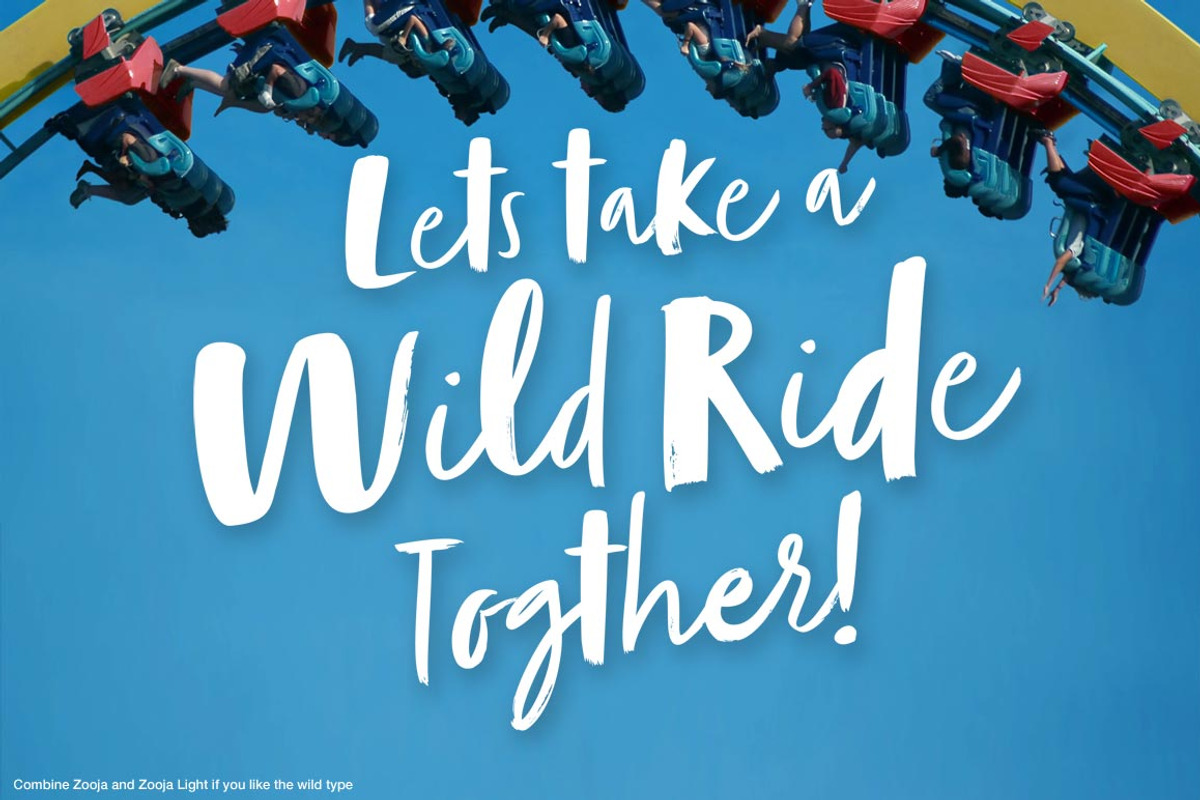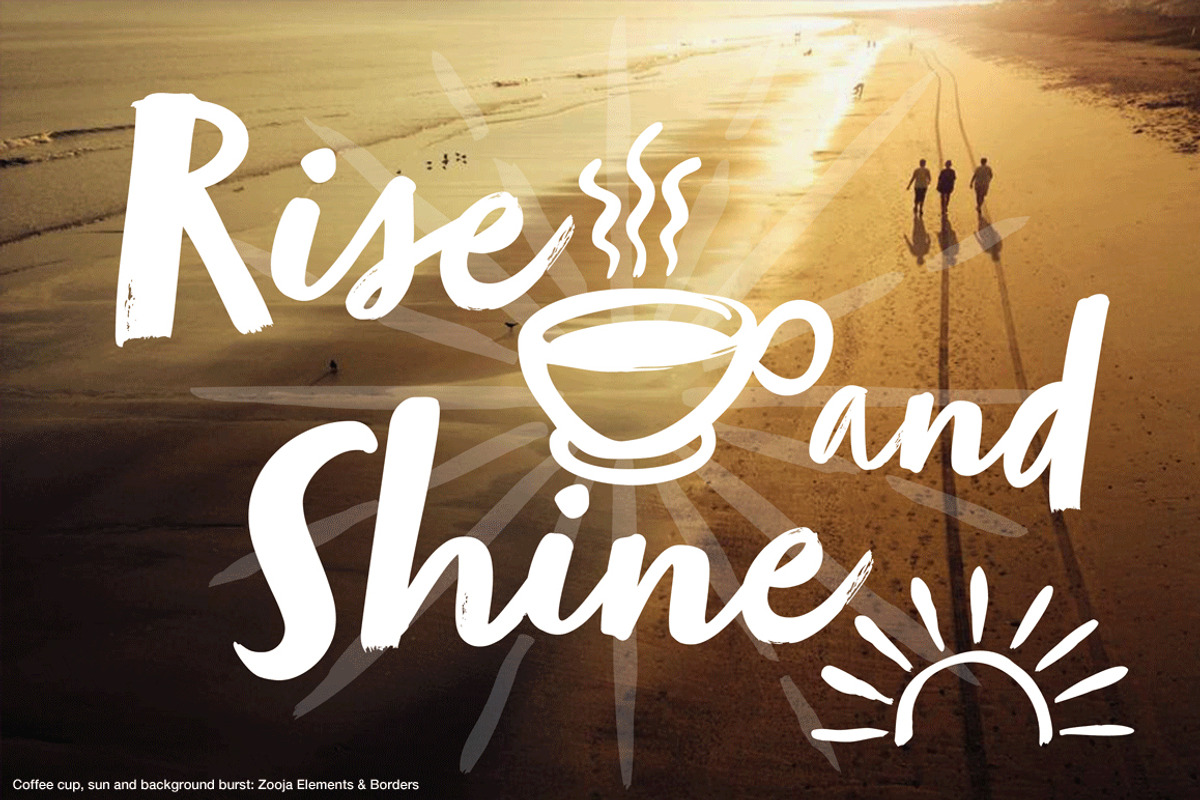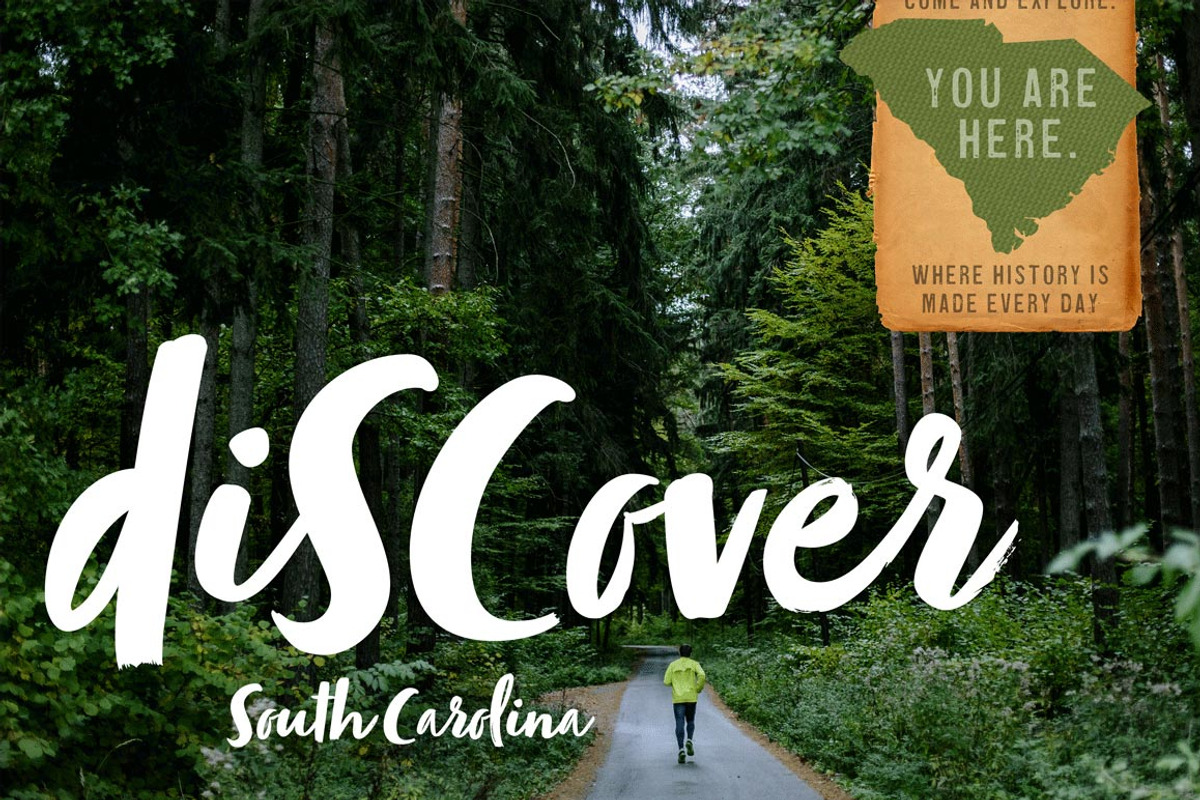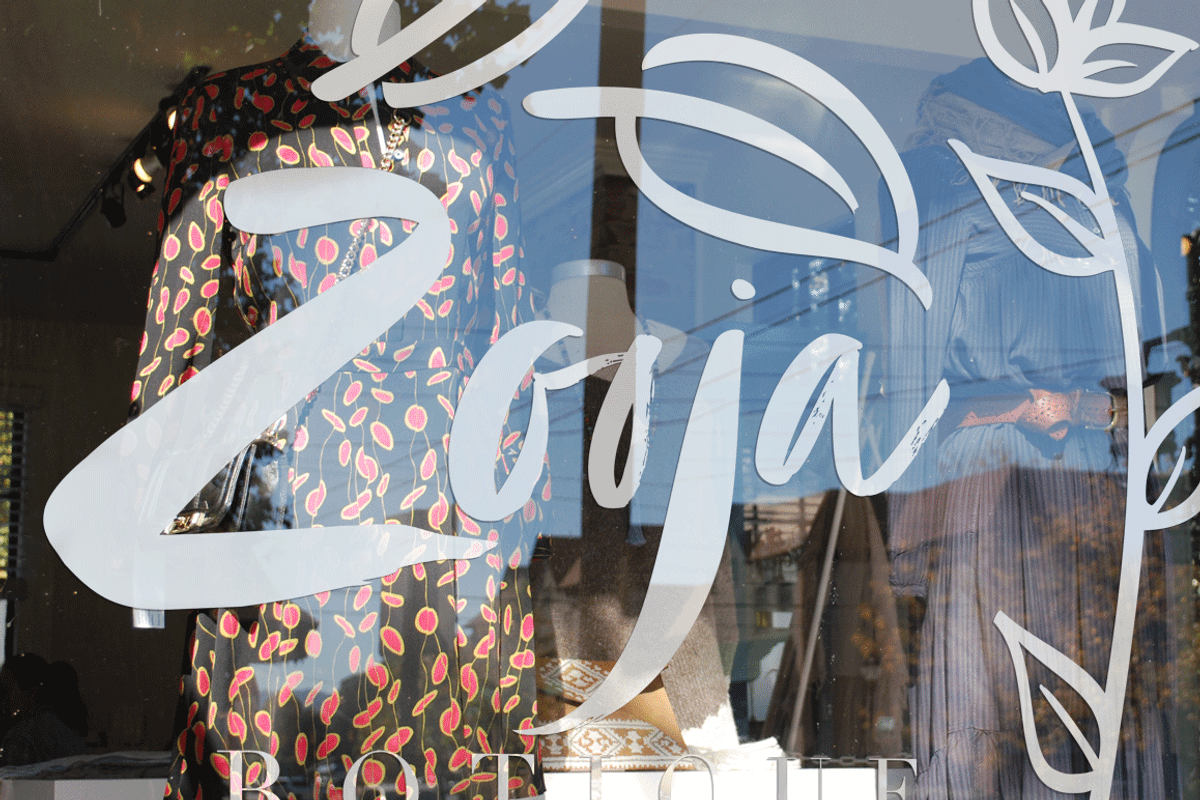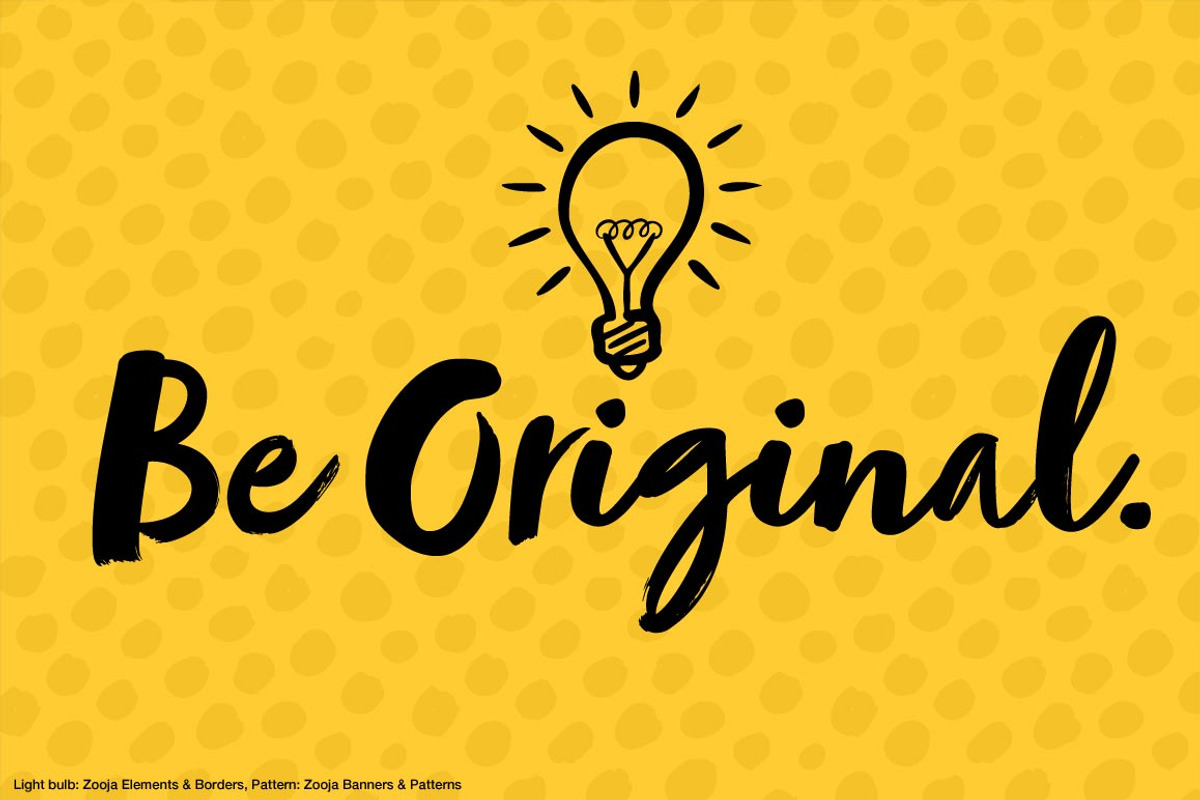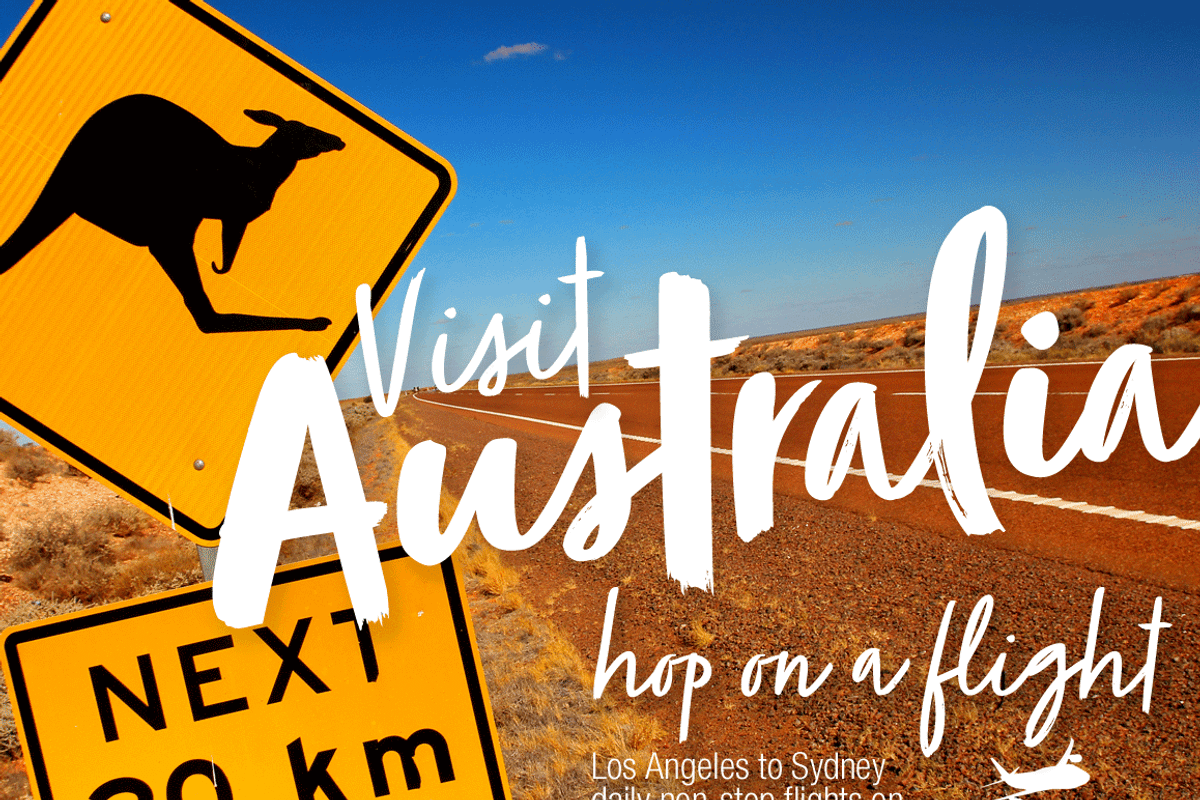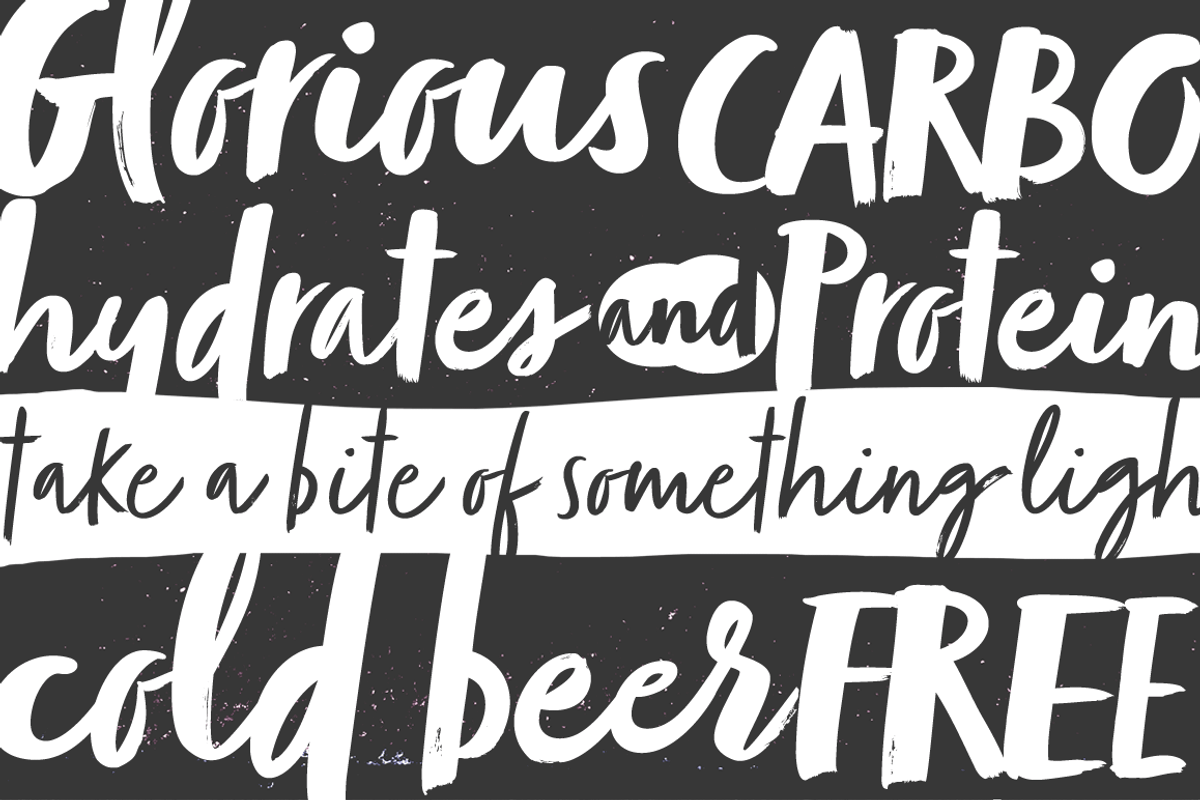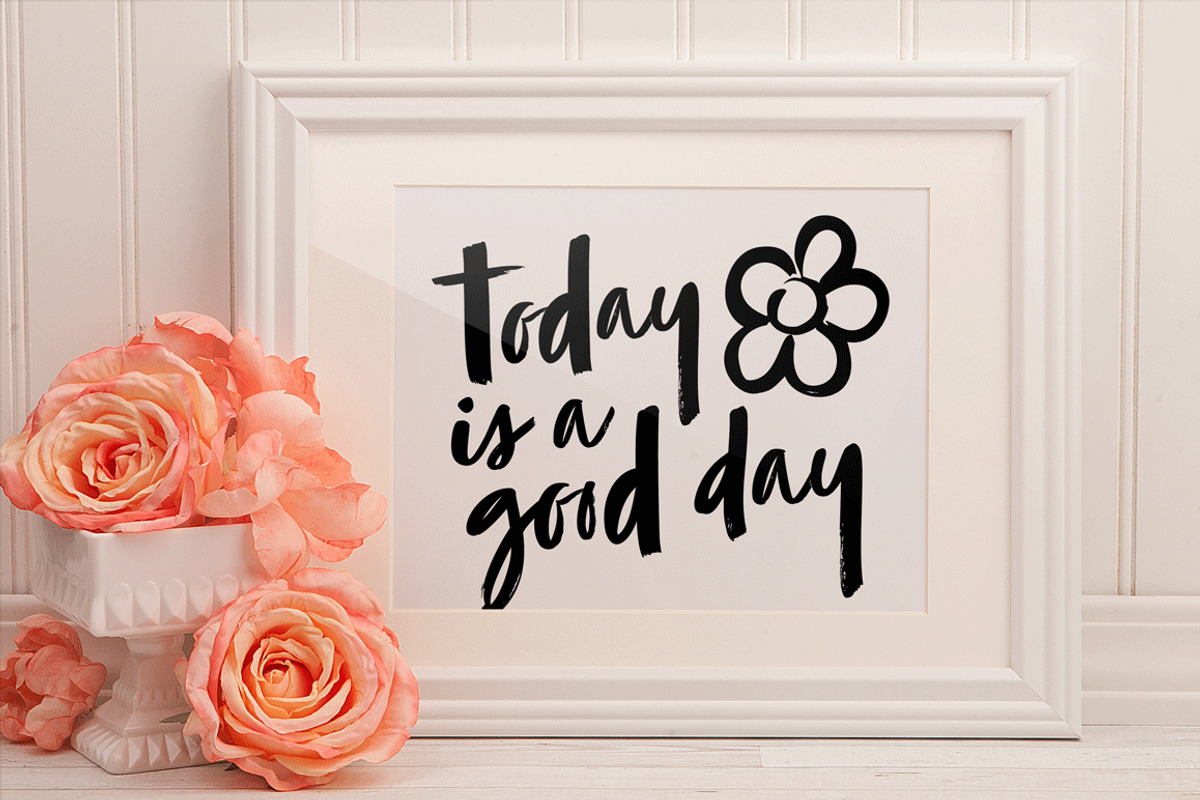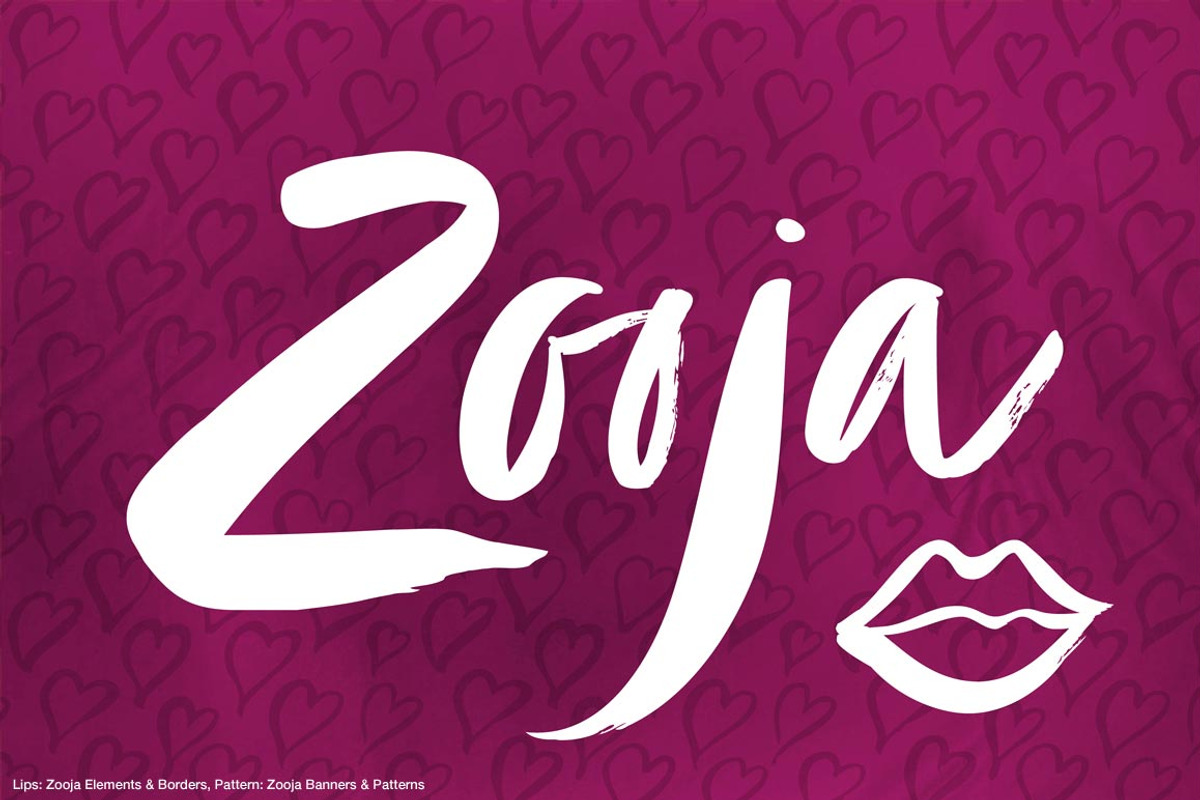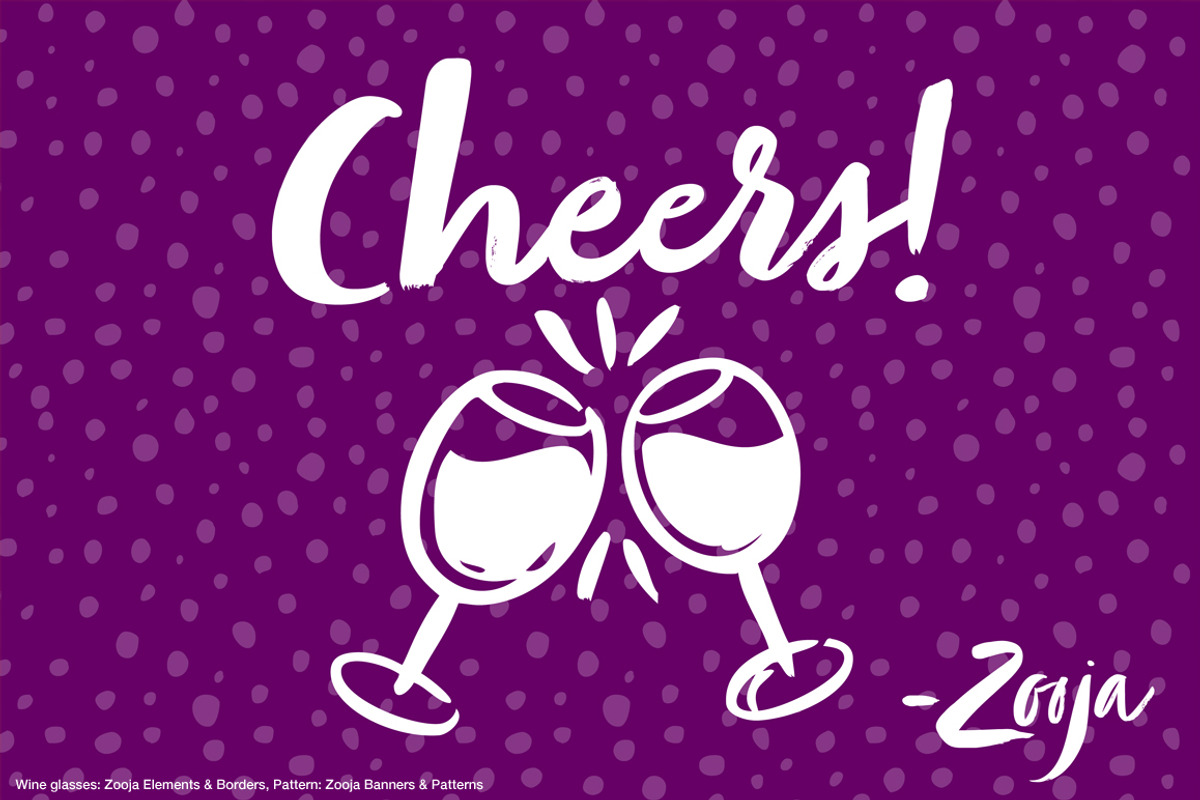
Zooja Script
Zooja™ and Zooja Light have alternates for every capital and lowercase letter, consecutive characters are controlled with the OpenType Ligature feature. Zooja Elements & Borders has 90+ fun decorative doodads, borders and corners that play well with the fonts. Zooja Catchwords has 60+ hand drawn word glyphs and Zooja Banners & Patterns has 17 repeatable patterns and 50+ banner and frame elements to help pull it all together. The Zooja fonts are available individually or as set: